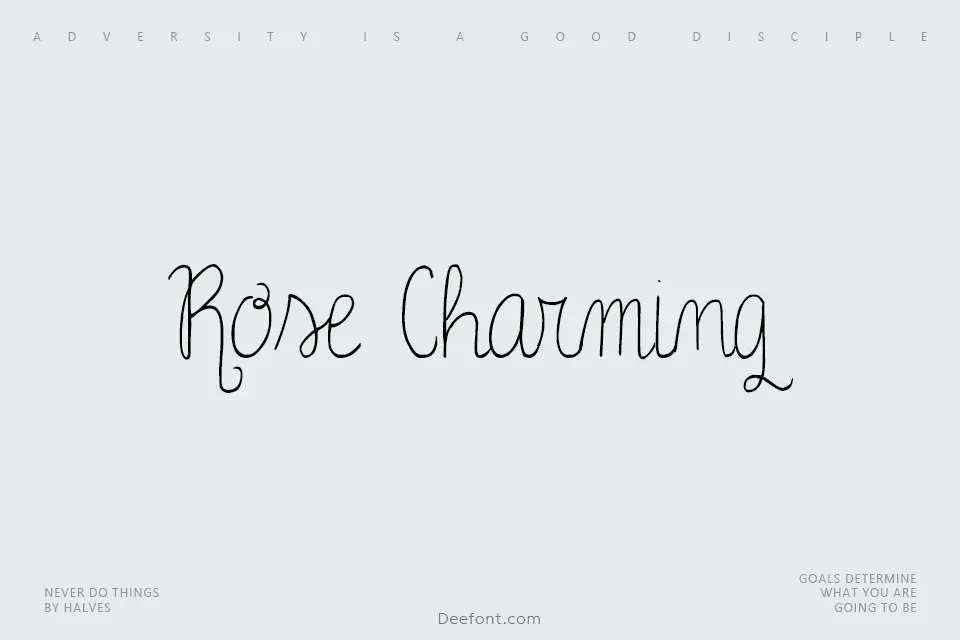
Rose Charming Font
Rose Charming is an elegant handwritten script font created by accomplished calligrapher and wedding designer Joelle Duff. This decorative typeface captures authentic penmanship with graceful cursive letterforms and sophisticated flourishes, making it ideal for wedding invitations, greeting cards, romantic posters, and feminine branding projects. With 236 beautifully crafted characters, the font delivers authentic handwriting aesthetics perfect for projects requiring elegant, personal touches. Its flowing letterforms and delicate strokes bring warmth and charm to display typography, greeting cards, social media graphics, and wedding stationery.